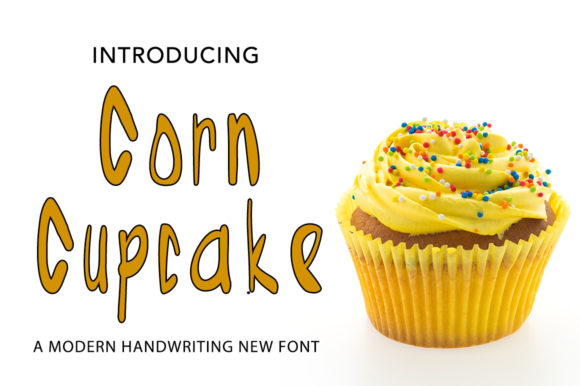
Introducing Corn Cupcake Font: A Delightfully Quirky Display Font for Your Creative Arsenal!
Step into a world of whimsy and charm with Corn Cupcake Font, a display font that oozes cuteness and personality! With its playful twists and turns, this font will infuse your designs with an irresistible sense of joy and lightheartedness.
Meticulously crafted by the talented morningmondayy, Corn Cupcake Font is a visual masterpiece that boasts unique letterforms that dance and play across your designs. Whether you are creating eye-catching banners, cheerful posters, or heartfelt invitations, this font will add a touch of magic that will leave your audience captivated.
Embrace the Corn Cupcake Font and let your imagination soar! Its cheerful nature will transform your designs into delightful expressions of creativity. Your audience will be drawn to the playful charm of this font, making your message impossible to ignore.
This font is more than just a collection of letters; it's an invitation to express your individuality and spread happiness wherever you go. Whether you're a seasoned designer or just starting out, Corn Cupcake Font is the perfect companion for adding a sprinkle of fun and delight to your creative projects.